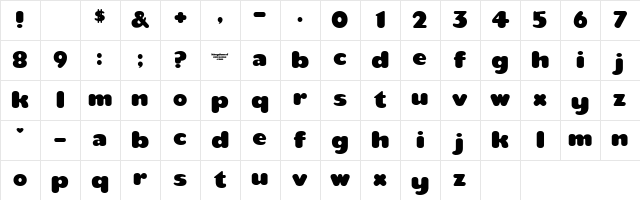
teaspoon Regular
Design Context for teaspoon
teaspoon is a composed and adaptable typeface that performs quietly and consistently across a wide range of design contexts.